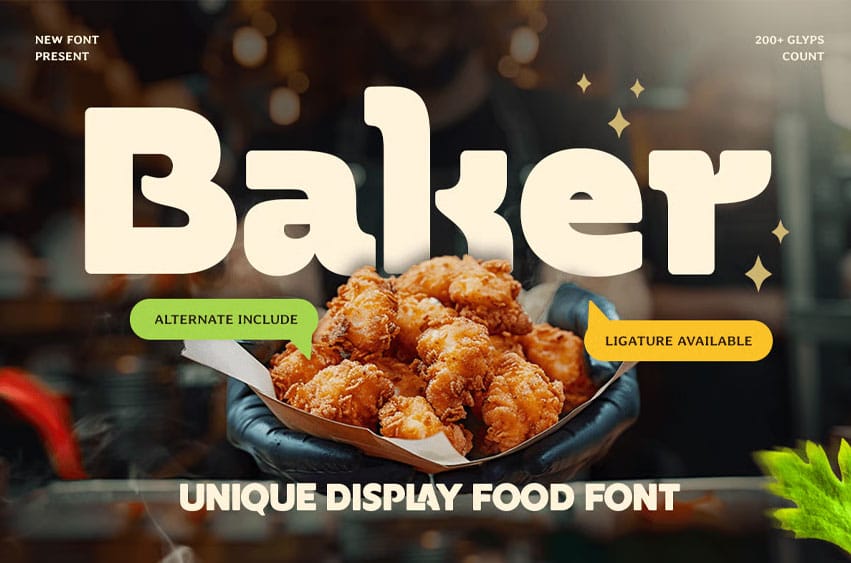
Baker Font Unique Display Food Font Baker is a unique display font created specifically for food-themed designs and delicious branding. With its bold shapes, friendly curves, and eye-catching character style, Baker is perfect for food logos, bakery branding, menus, packaging, posters, café visuals, and culinary promotions.
Designed to feel warm, tasty, and inviting, Baker brings strong personality while maintaining great readability. Its unique display style makes it ideal for bakeries, restaurants, dessert brands, street food concepts, food trucks, and creative culinary projects that want to stand out and attract attention instantly.
Baker – Unique Display Food Font Features:
- Unique display style with food-focused personality
- Ideal for food logos, menus, packaging, and branding
- Bold strokes with friendly, appetizing letterforms
- Perfect for fun, bold, and delicious visual designs
Make your food branding more irresistible with Baker – the unique display font made for tasty visual impact.